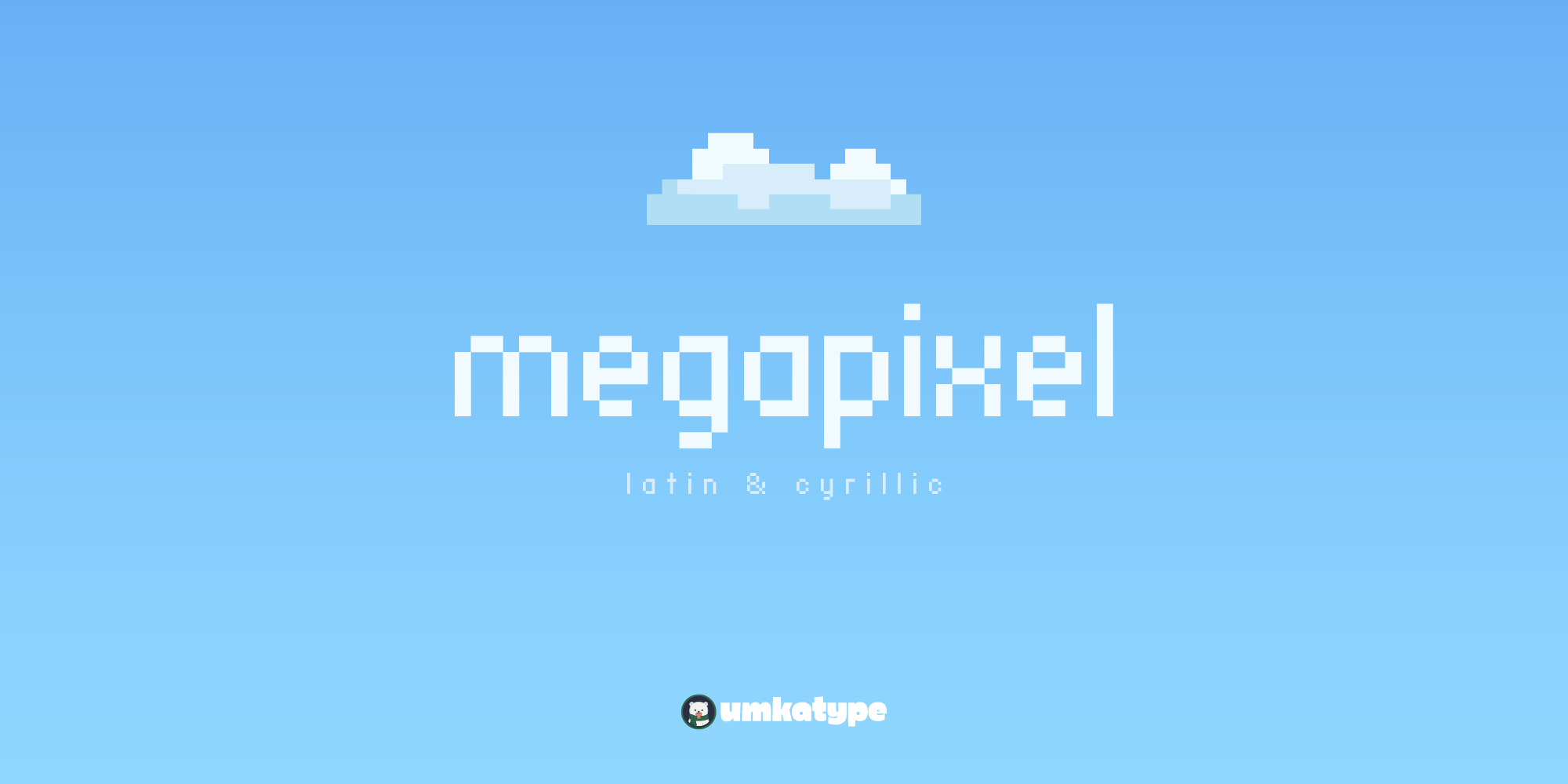
Megapixel Font is ideal for digital photography studios, camera equipment branding, image editing software interfaces, visual technology marketing, pixel art gaming graphics, digital media companies, photography education materials, screen resolution displays, visual effects promotions, and high-definition technology advertising.
What makes Megapixel Font exciting is its digital precision that perfectly captures the technological accuracy and visual clarity found in modern digital imaging and high-resolution photography excellence. This typeface features pixelated letterforms with digital proportions and resolution-inspired details that evoke the sharp clarity and technical precision of advanced digital imaging technology. The font's digital personality and imaging authenticity make it ideal for technology brands seeking to convey clarity, precision, and the visual excellence that comes from cutting-edge digital imaging and photography technology mastery.
Megapixel Font family includes high-resolution weight variations and digital alternatives that enhance its technological appeal while providing design flexibility for digital imaging and visual technology applications. The font features pixel-perfect ligatures, digital-themed ornaments, and resolution character variations that create authentic digital atmosphere for imaging technology and visual media branding.
Photography companies and digital imaging firms consistently choose Megapixel Font Free Download for projects requiring authentic digital appeal and imaging technology credibility. The font's precise character excels in applications targeting photographers, digital artists, and imaging professionals who appreciate genuine technological advancement and visual clarity excellence. Whether you're designing for camera manufacturers, photo editing software, or digital imaging services, this sharp typeface delivers the digital authenticity and imaging precision that resonates with audiences seeking genuine visual technology and the crystal-clear quality that defines modern digital photography and high-resolution imaging excellence.